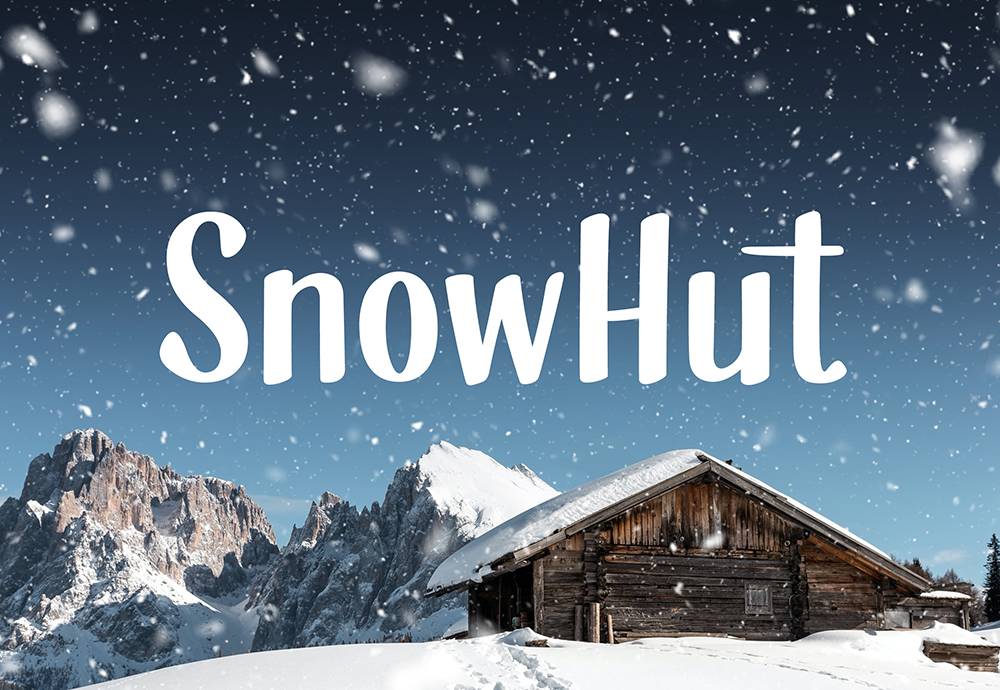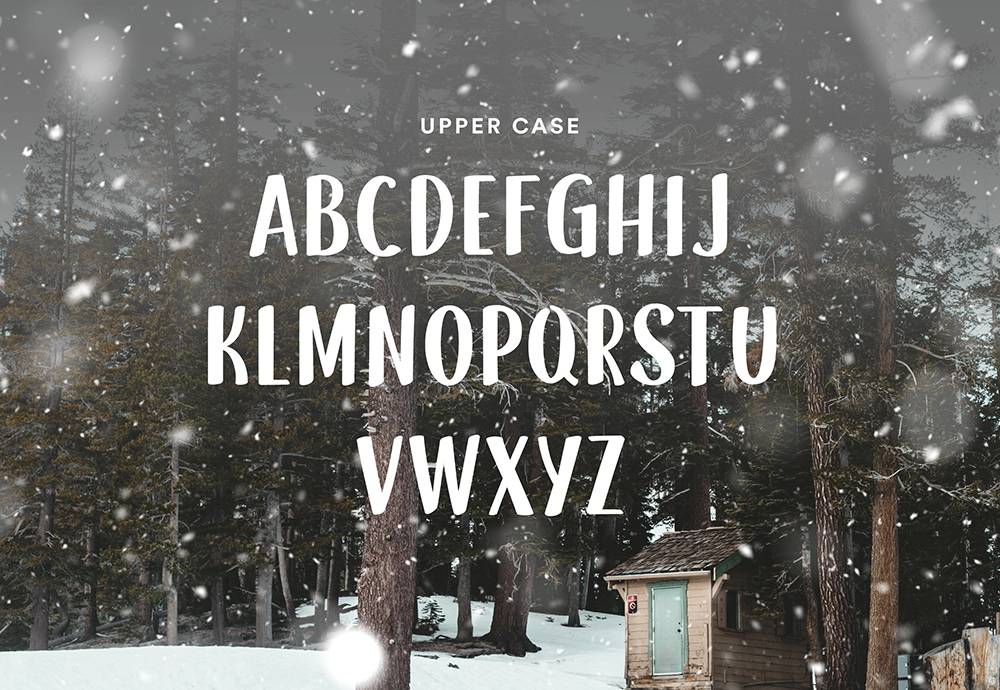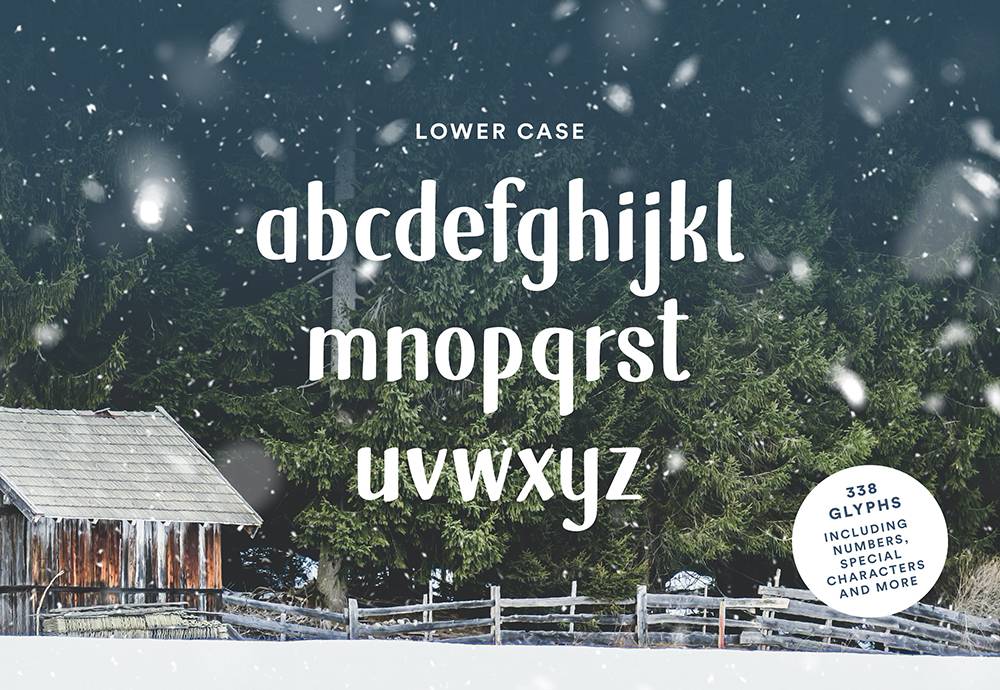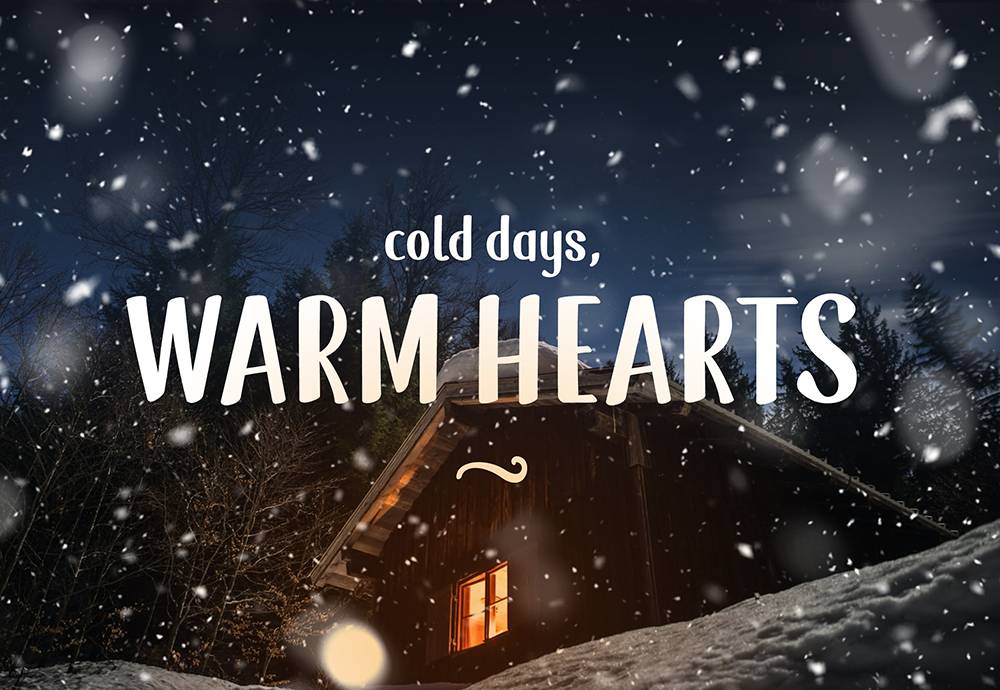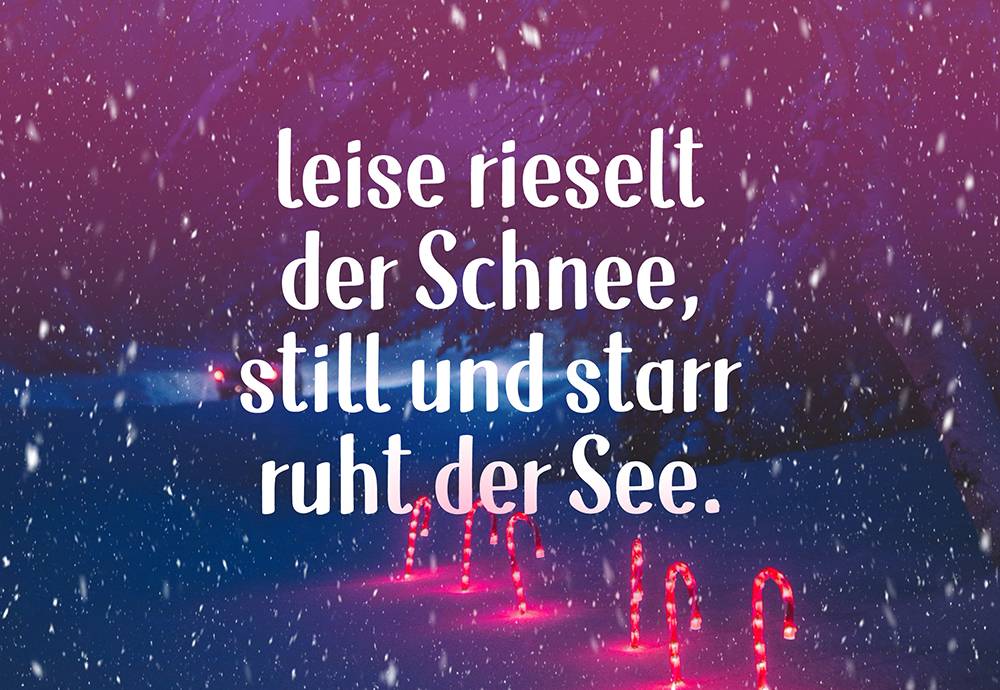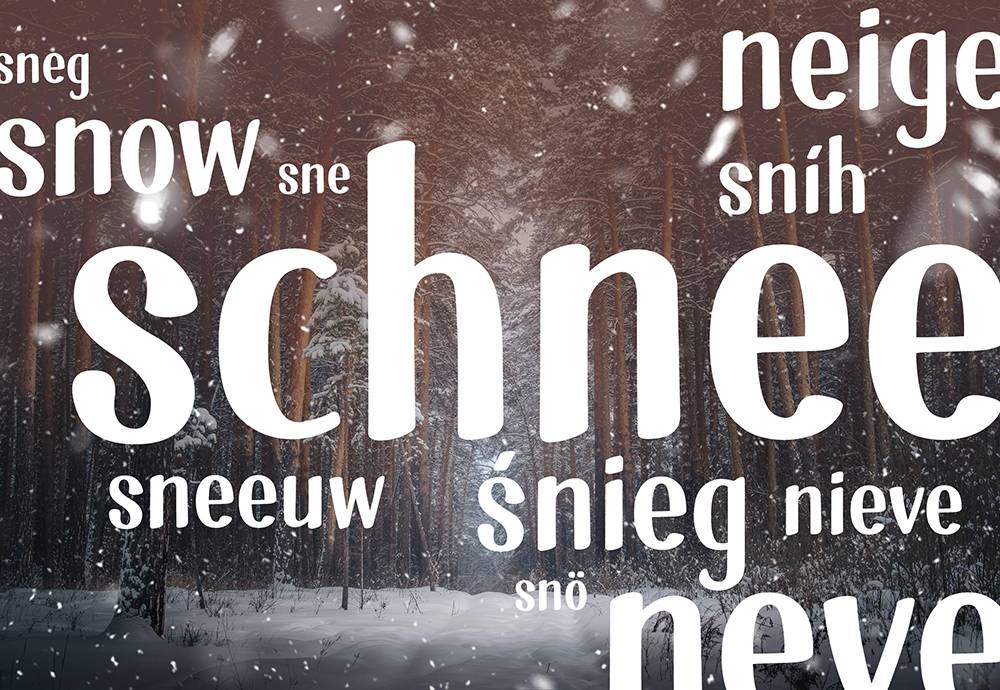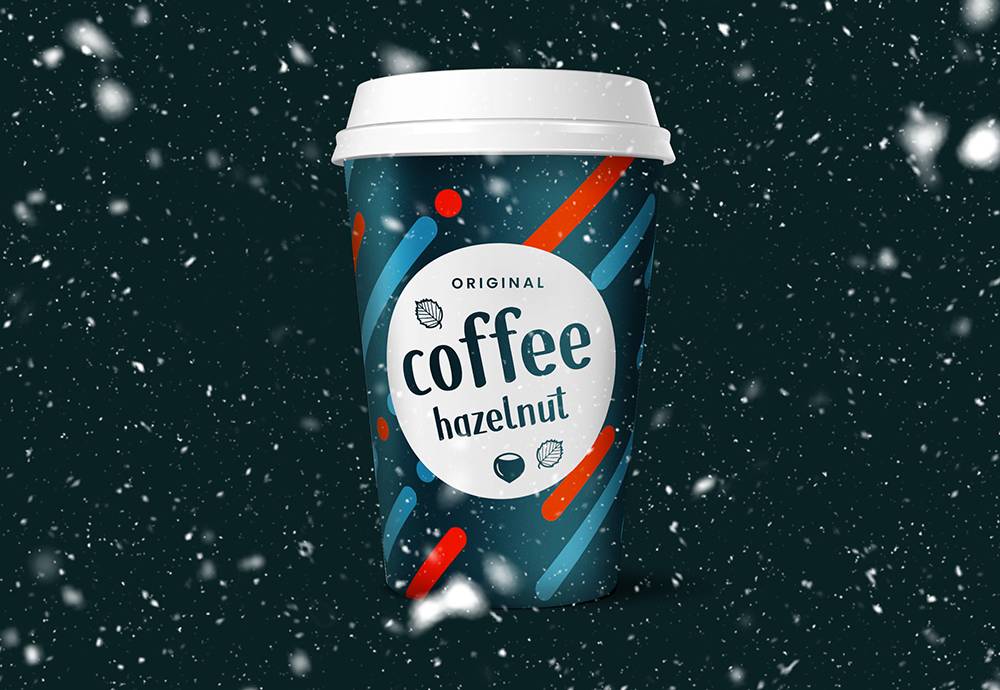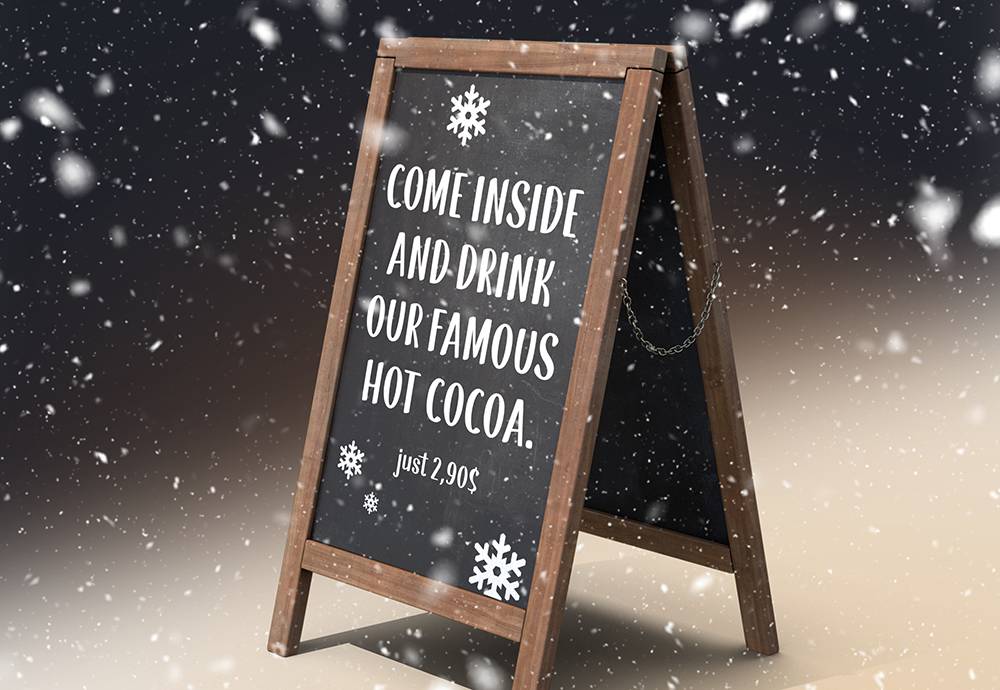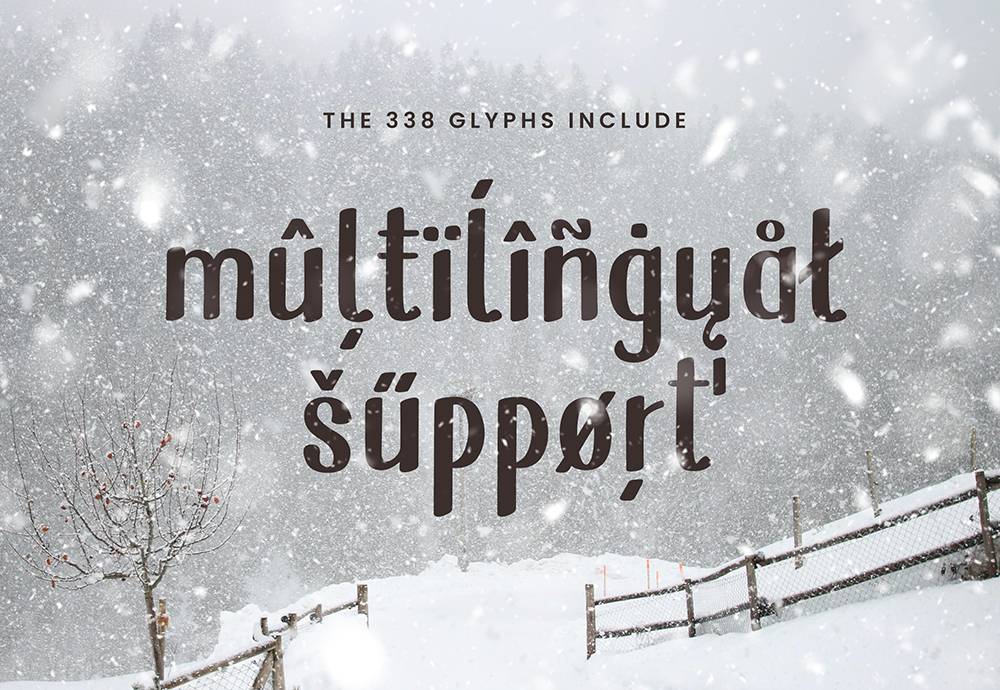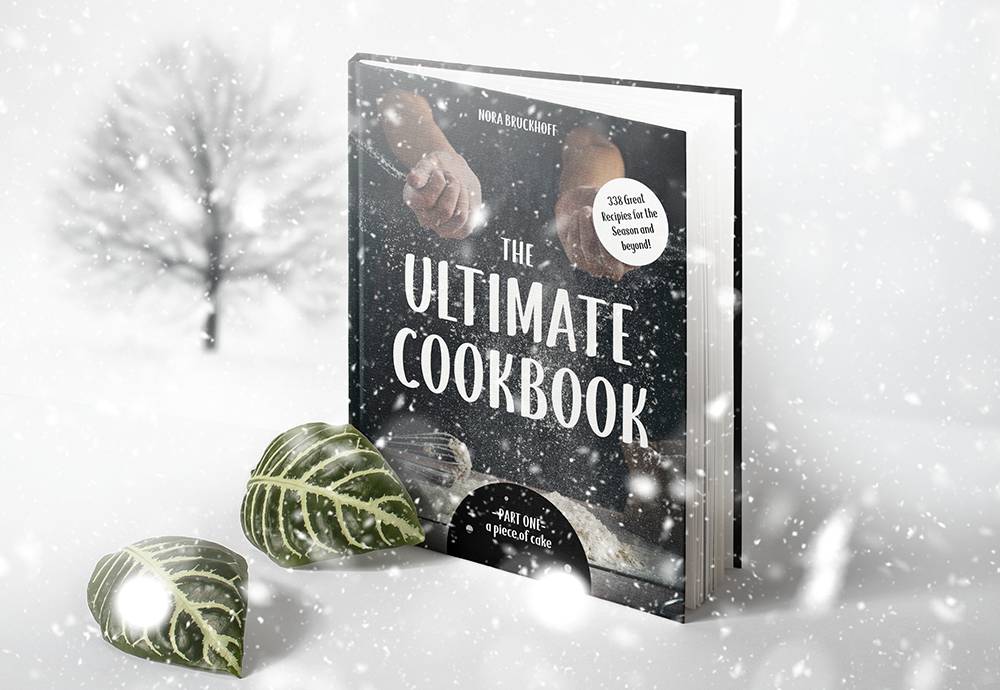
SnowHut is a playful sans serif typeface with a moderately tall x-height and a friendly, hand-crafted feel. Its rounded, slightly irregular letterforms, combined with medium stroke contrast and unique details like single-story 'a' and 'g', make it perfect for brands seeking a warm, approachable vibe. This font works well for casual headlines, packaging, and creative projects that want to convey charm and personality without losing clarity.
SnowHut Typeface Glyphset
About SnowHut Typeface Glyphset
| Font family | SnowHut Typeface Glyphset |
| Designer | Philip Trautmann |